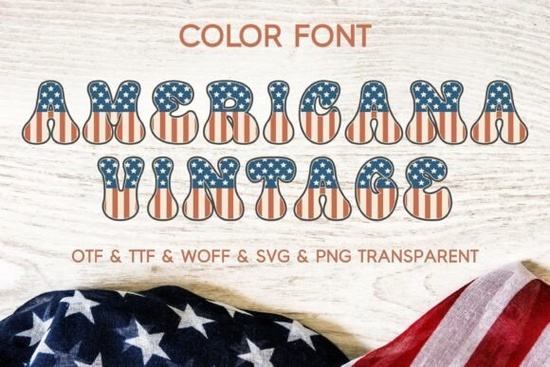
Getting ready for Independence Day projects means finding the right typography to make your designs stand out. If you are working on summer merch or party supplies, the Americana Vintage Font offers a fun, retro bubble letter style that instantly brings a nostalgic feel to your work. This colorful typeface comes packed with classic stars and stripes patterns, making it a solid choice for crafters and print-on-demand sellers who want to create festive, eye-catching items without spending hours drawing custom letters.
What projects work best with retro bubble letters?
Bubble letters have a playful, approachable look that works exceptionally well for casual and festive merchandise. Because this specific typeface includes built-in red, white, and blue textures, you can skip the manual coloring step in your design software.
A good design bundle should give you plenty of extra elements to build out a full scene or frame your text. Alongside the uppercase alphabet, numbers, and basic punctuation, this collection provides a wide variety of coordinating graphics.
These elements share the same clean outlines and charming retro aesthetic as the lettering. This means you can mix and match them to create complex layouts, like wrapping a hot dog graphic around a curved text path or building a decorative border for a sublimation tumbler wrap.
If you have never worked with a color font before, the process is slightly different from standard black-and-white typefaces. The Americana Vintage Font relies on OpenType SVG technology to display the built-in stars and stripes patterns directly inside the letters.
- Check the contrast: If placing the font on a busy background, add a subtle white or navy drop shadow to make the bubble letters pop.
- Verify your spelling: Since this font only includes uppercase letters and basic punctuation, double-check your text layout before sending it to the printer.